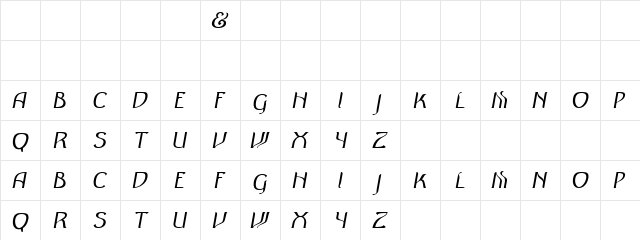
HansonCaps Obliaue Font Preview
HansonCaps Obliaue
Design Context for HansonCaps Typeface
HansonCaps offers clean, dependable letterforms without strong stylistic allegiance, making it a practical choice for designers who need flexibility.